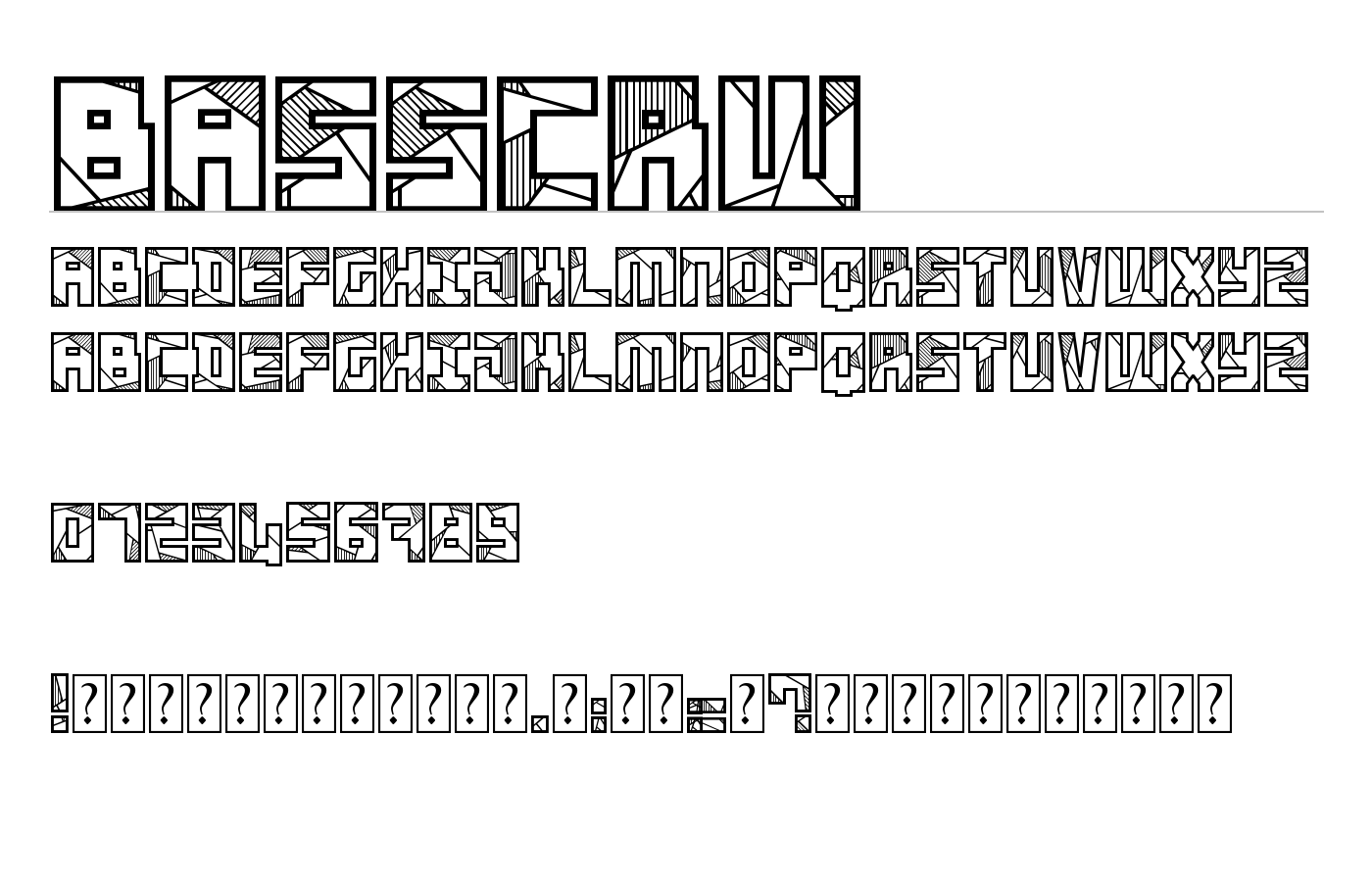
Basscrw is a bold, geometric display font with a distinctive architectural style, featuring angular lines and intricate internal patterns. Its uppercase-only design and strong contrast of solid outlines with patterned fills make it ideal for eye-catching headlines, posters, and creative branding that demands a modern, edgy vibe. This font works well in projects needing a unique, urban feel with a touch of artistic flair.
Basscrw Font
About Basscrw Font